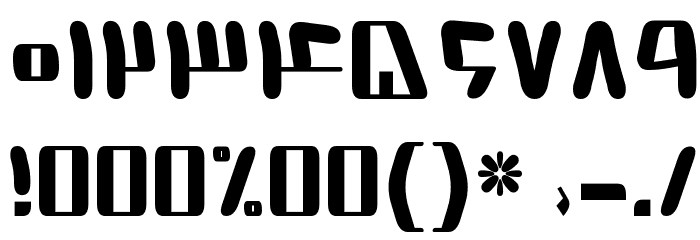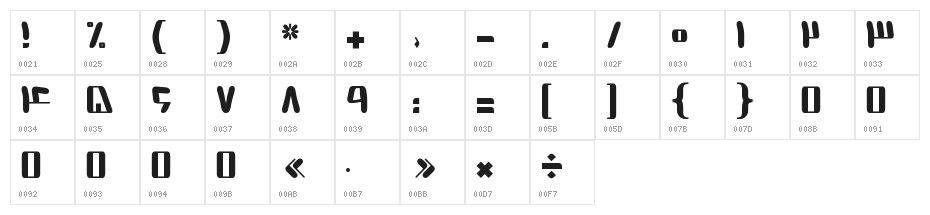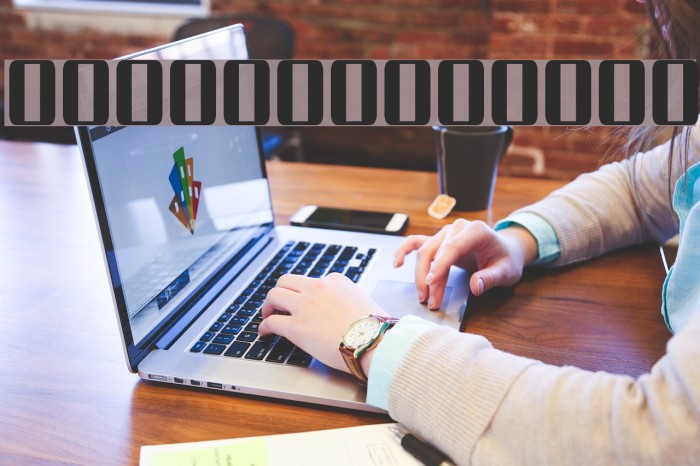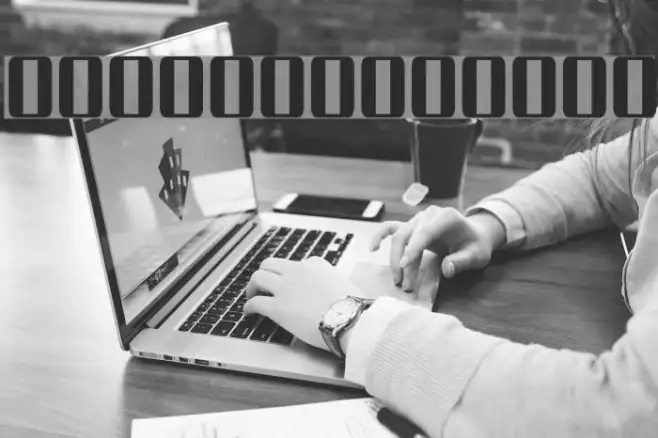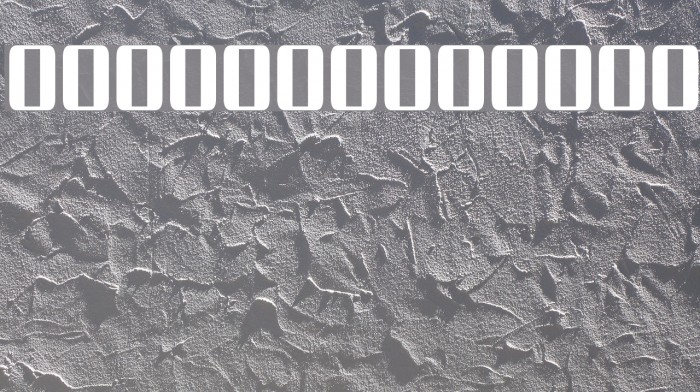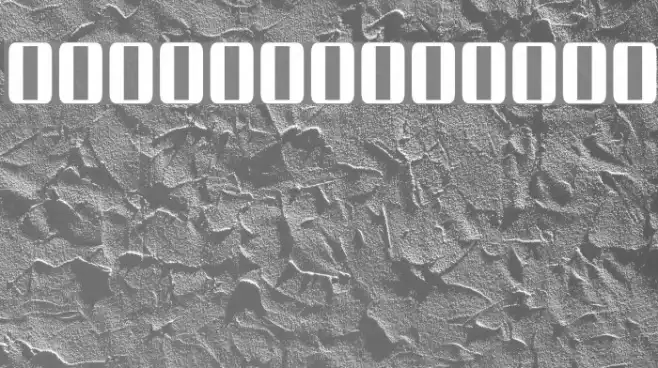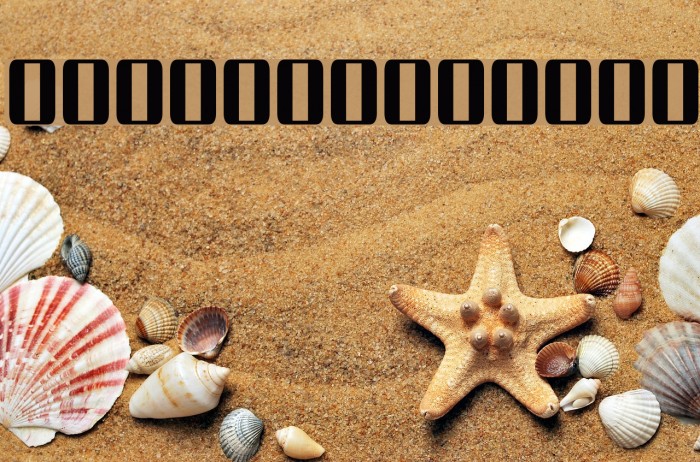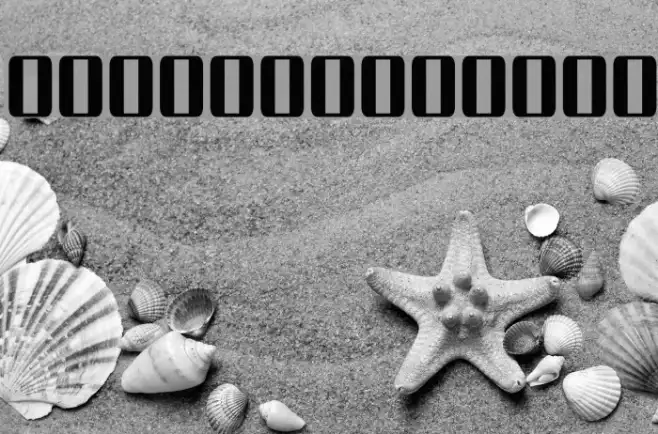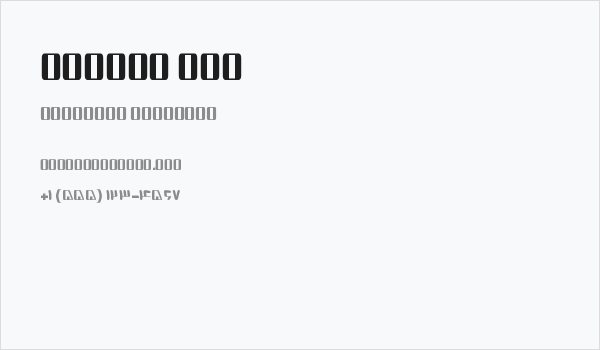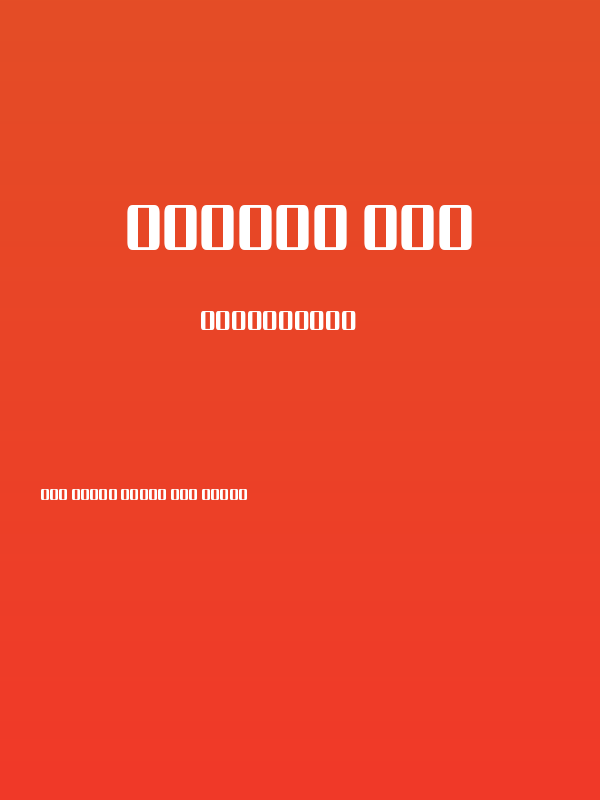
Modern III Font
Modern III Description
This font features a highly modern and digital aesthetic, reminiscent of digital displays or LED screens. The characters are composed of rectangular shapes with rounded corners, giving them a futuristic and technical appearance. The uniformity in the design of each character creates a cohesive and structured look. The numbers and special characters maintain this digital style, ensuring consistency across all elements. This font is particularly suited for projects that require a modern, tech-savvy feel, such as digital interfaces, tech branding, or futuristic designs.
| Proposed Projects | Ideal for digital interfaces, tech branding, and futuristic design projects. |